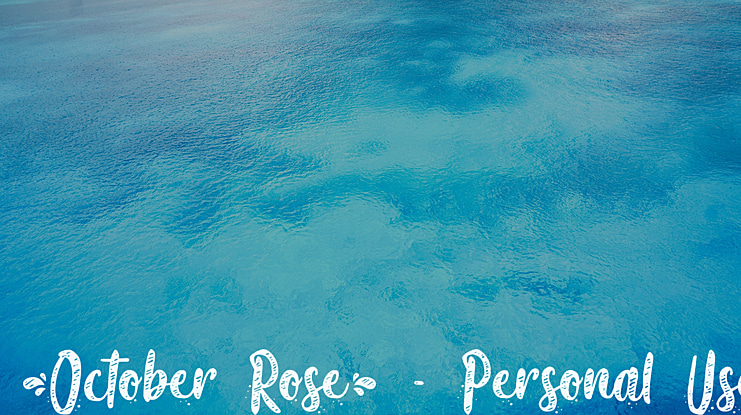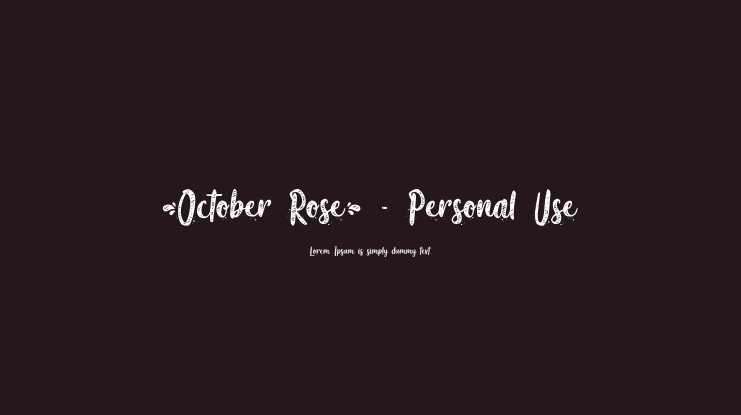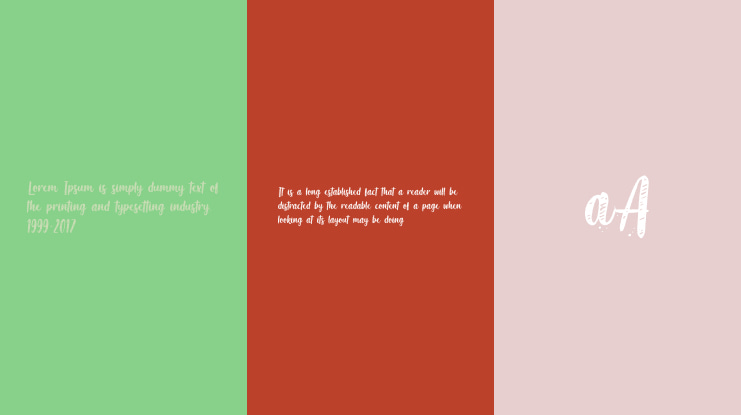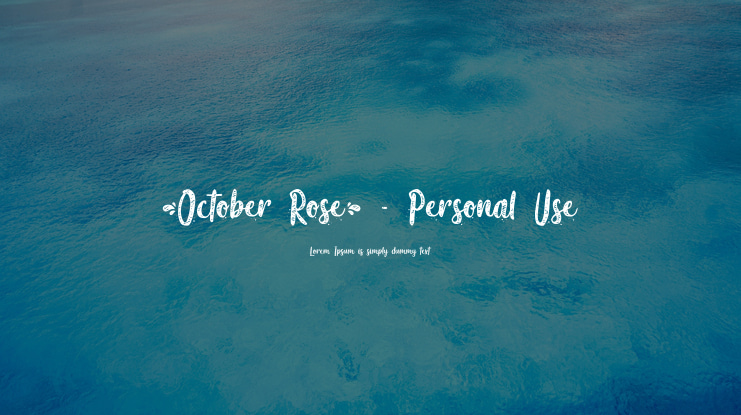
October Rose - Personal Use Font
Typhoon Type™ - Suthi Srisopha
Type ( before word to get beginning swash and Type ) after word to get the ending swash.
Example : (October Rose)